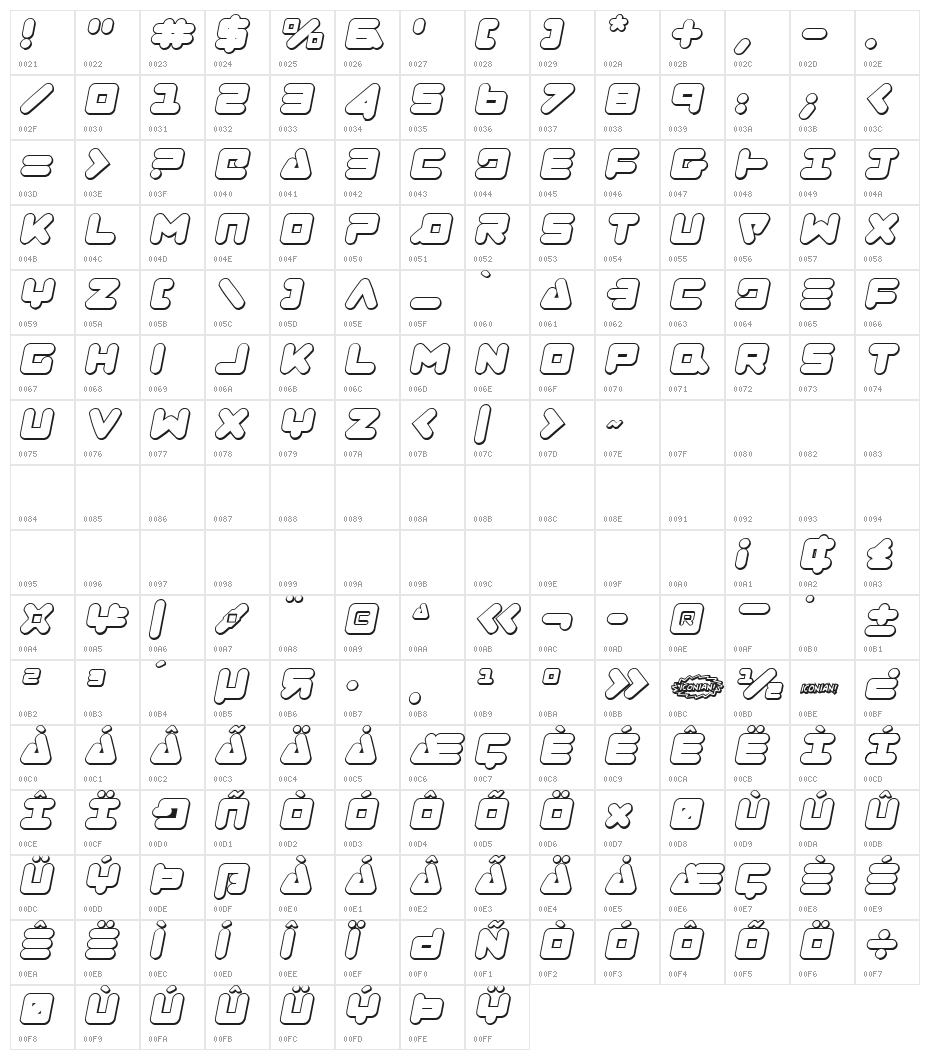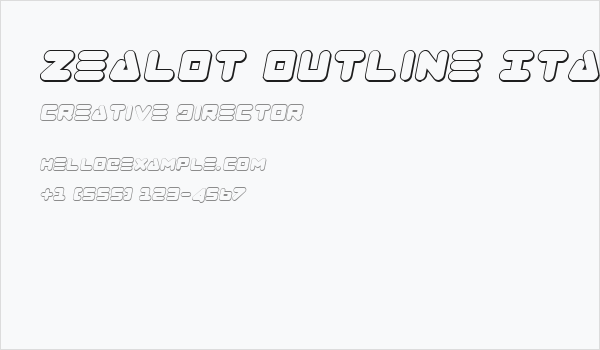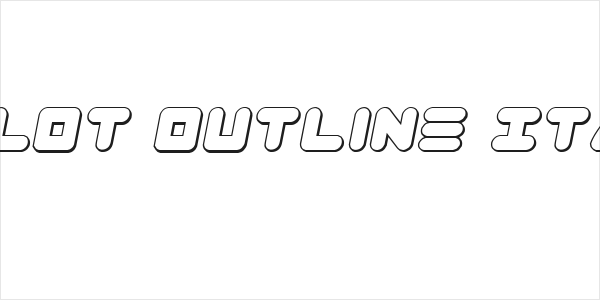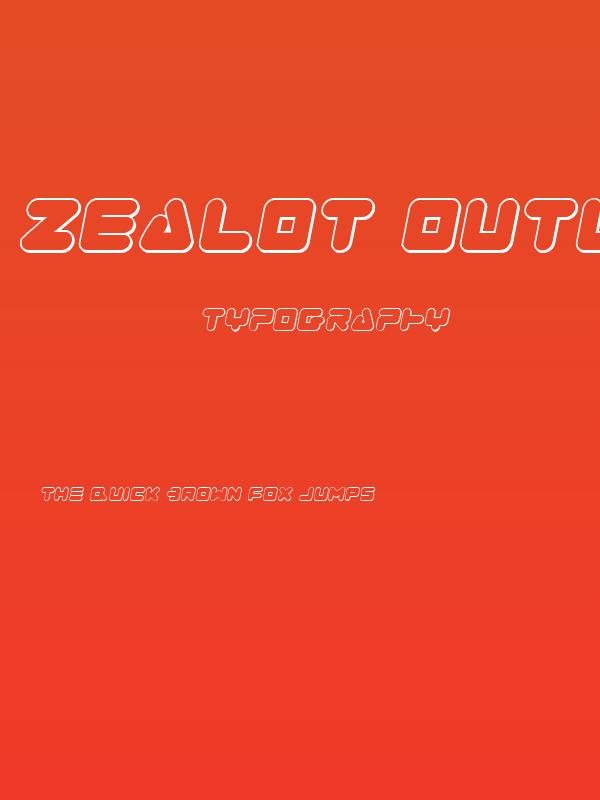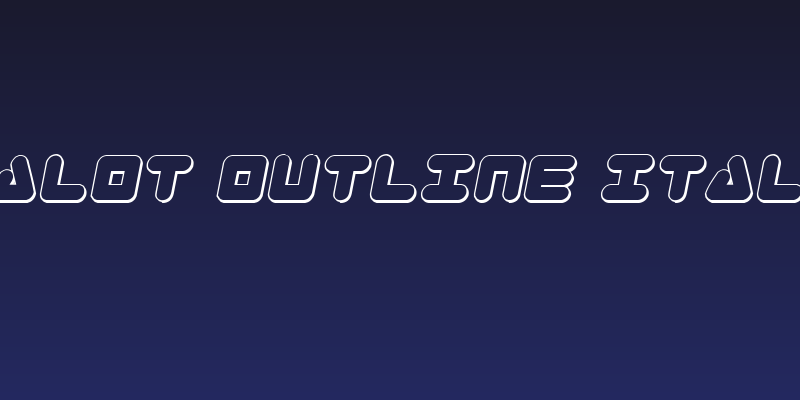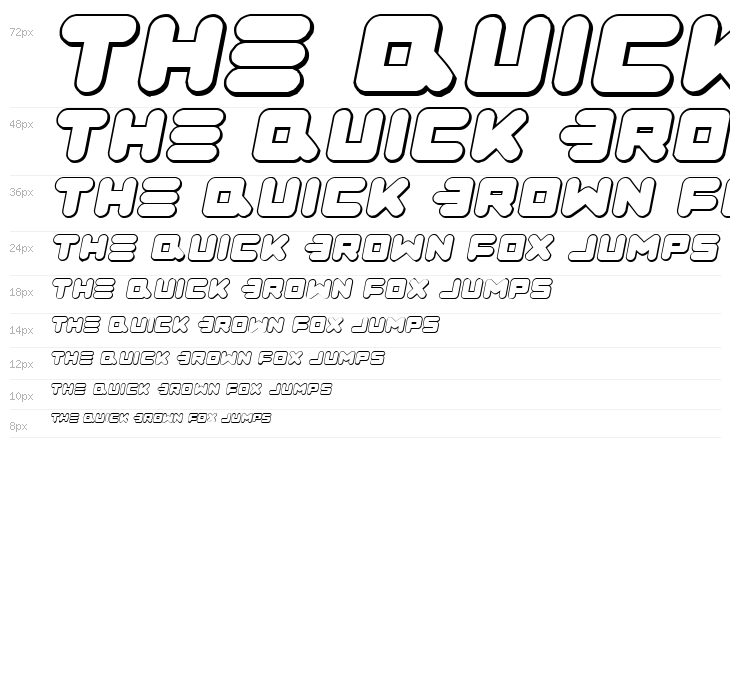
Zealot Outline Italic Font
Zealot Outline Italic Description
This font features a bold, outlined style with a modern and futuristic aesthetic. The characters are designed with a consistent outline that gives them a three-dimensional appearance. The uppercase and lowercase letters maintain a uniform height, contributing to a cohesive look. The numbers and special characters follow the same design principles, ensuring a harmonious overall appearance. The italic slant adds a dynamic feel, making it suitable for projects that require a sense of motion or energy. The font's unique style makes it stand out, ideal for creative and eye-catching designs.
| Overall Style | Modern, Futuristic |
| Proposed Projects | Ideal for branding, posters, video game graphics, and futuristic-themed designs. |